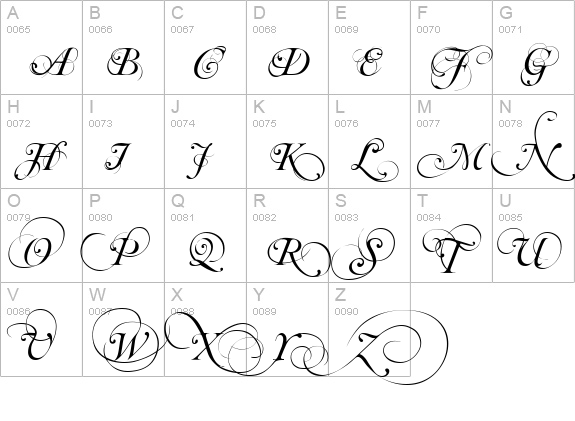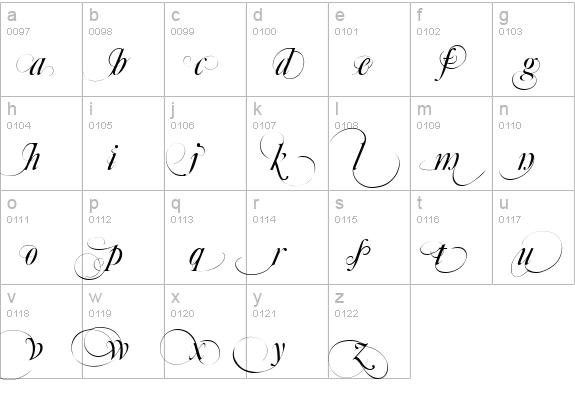
Mutlu Ornamental Font Details
Mutlu Ornamental font is a beautifully crafted typeface that exudes elegance and sophistication. Its intricate details and ornate design make it perfect for adding a touch of luxury to any project. The delicate flourishes and curves of the letters give this font a unique and eye-catching appeal. What sets Mutlu Ornamental font apart is not only its stunning aesthetic, but also the fact that it is available for free. You can easily download this exquisite font at FontsMarket.com and use it for a variety of purposes, from branding and packaging to invitations and signage. With Mutlu Ornamental font, you can elevate your designs and create a truly memorable visual experience. Its timeless charm and versatility make it a must-have addition to any designer's toolkit. Download this font today and unleash your creativity!